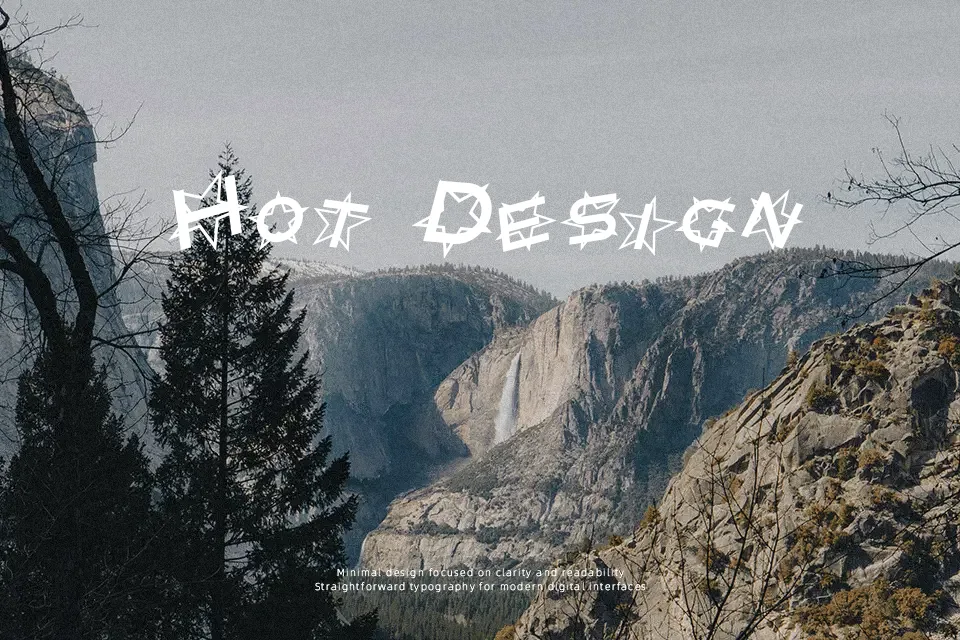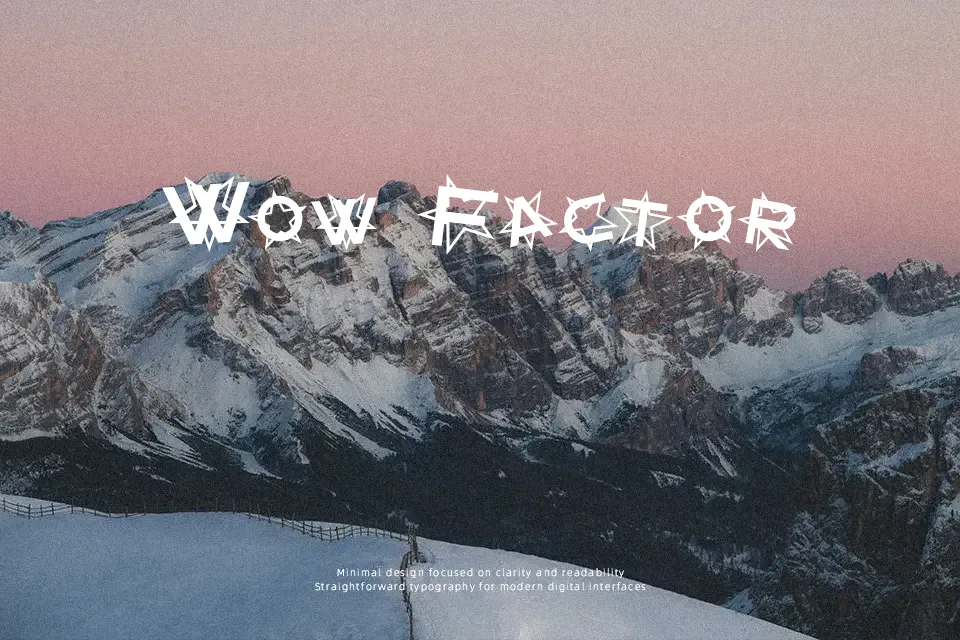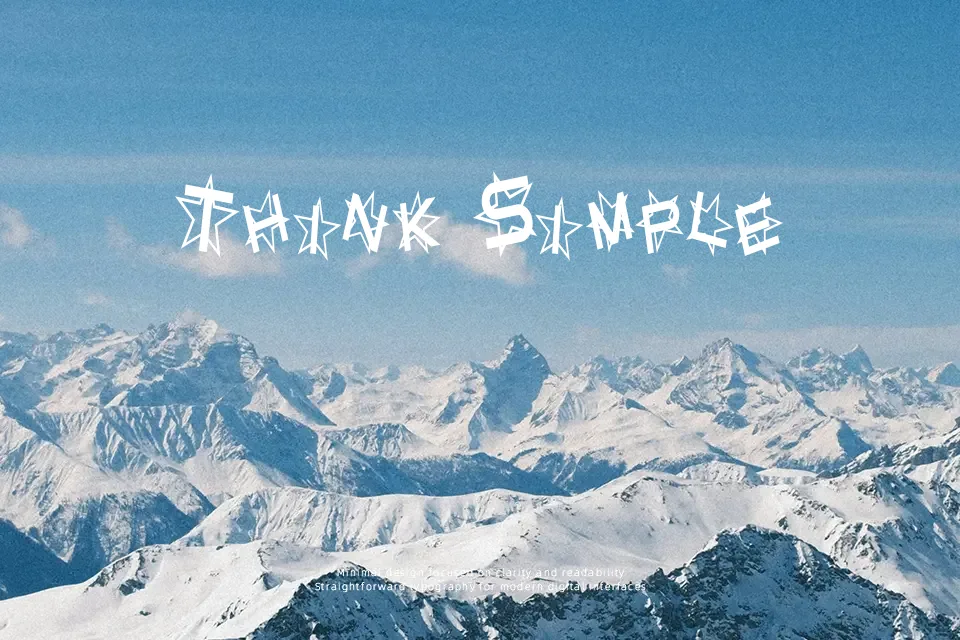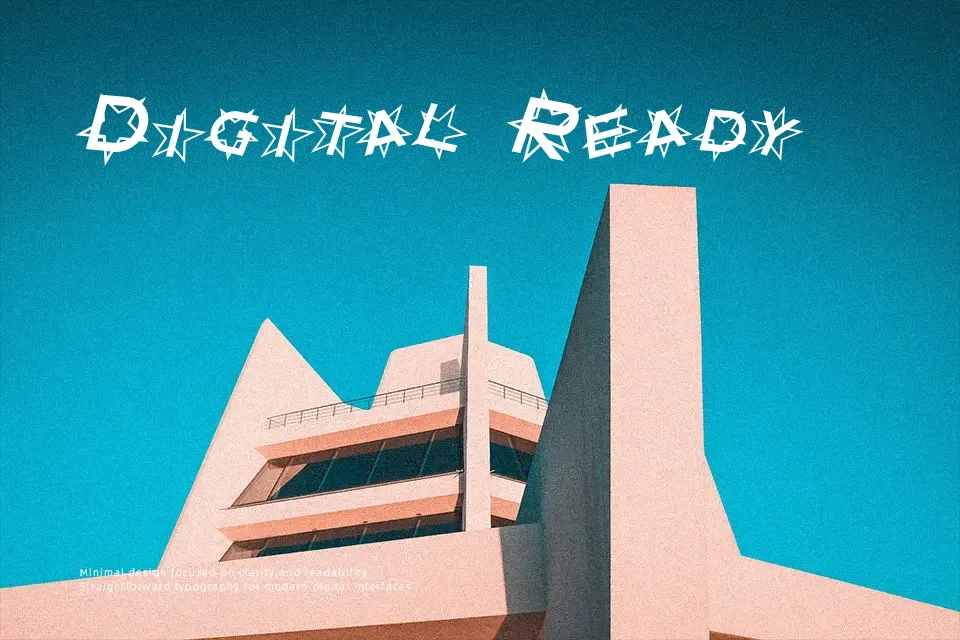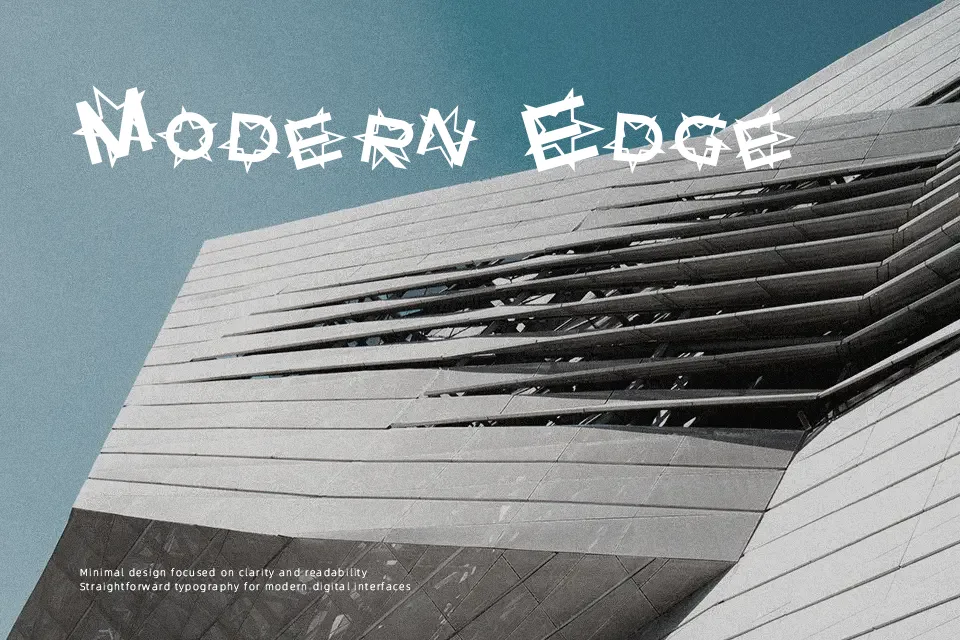
Star Dust Font
Star Dust Font presents an eye-catching decorative structure where each uppercase glyph is anchored inside an outlined celestial star framework. The typeface maintains consistent monoline strokes across all characters, pairing rigid geometric angles with wide horizontal tracking to prevent adjacent shapes from colliding. Legibility remains crisp across short header lines and standalone badges, making the design particularly well suited for fantasy game titles, themed event banners, and juvenile merchandise packaging. However, the prominent outer star contours add substantial visual density that impairs reading comfort in continuous paragraphs. For optimal clarity, graphic designers should reserve the letterforms strictly for prominent titling rather than multi-line editorial layouts.
Best For: fantasy game titles, themed event banners, children’s book covers, celestial poster headlines
Not Ideal For: continuous paragraph text, mobile app interface labels, technical documentation, dense data tables
Perfect for gaming, headline, and kids, with a bold and decorative style.